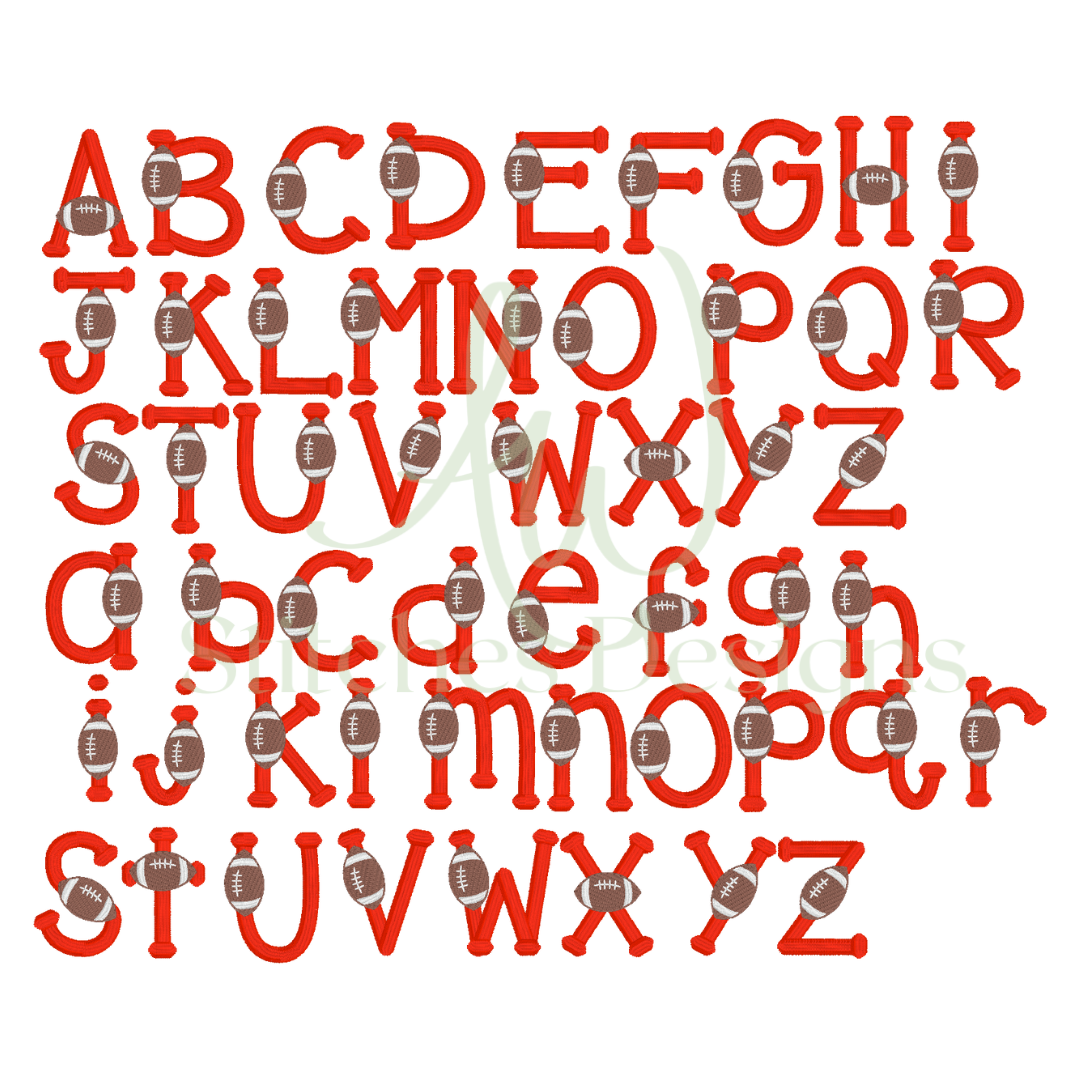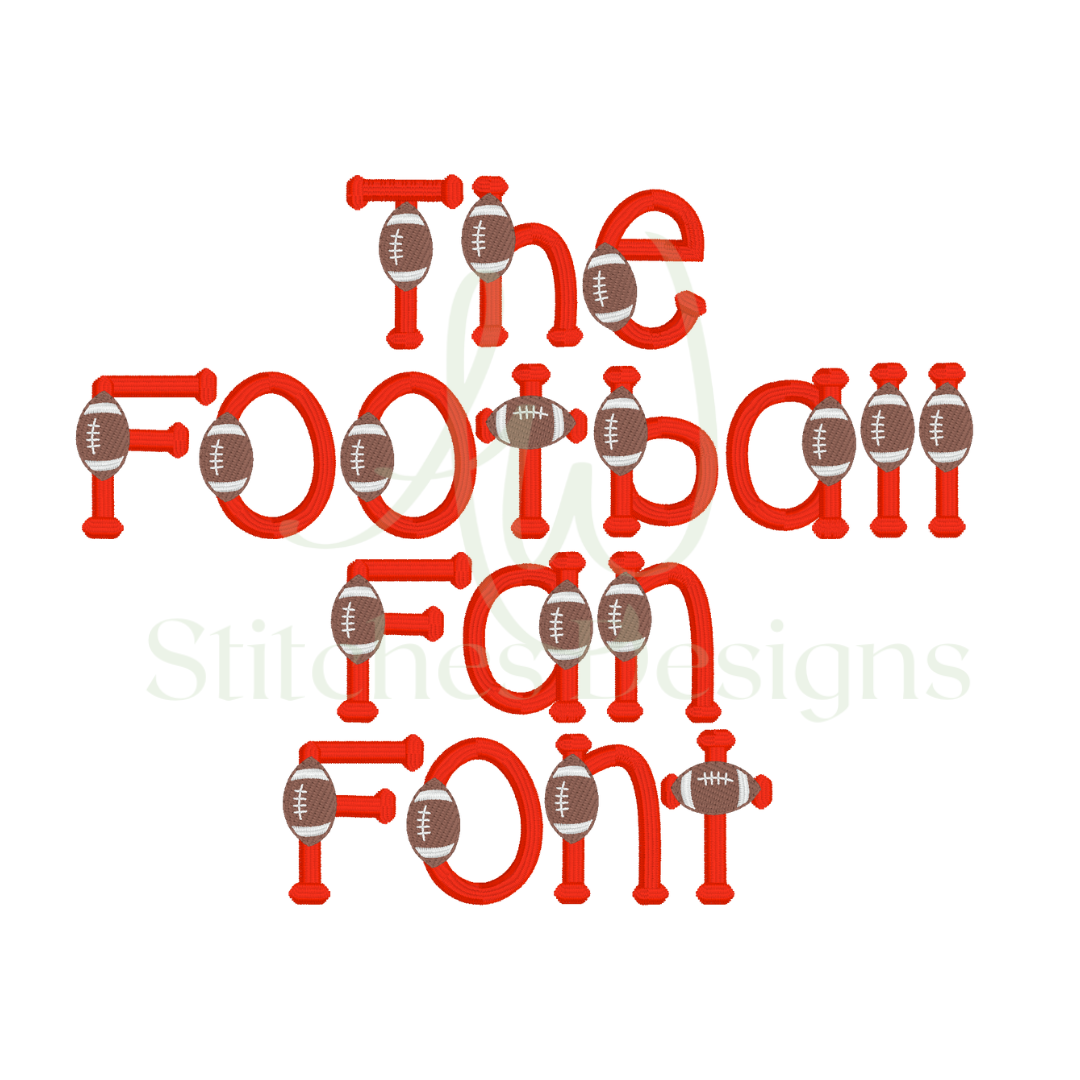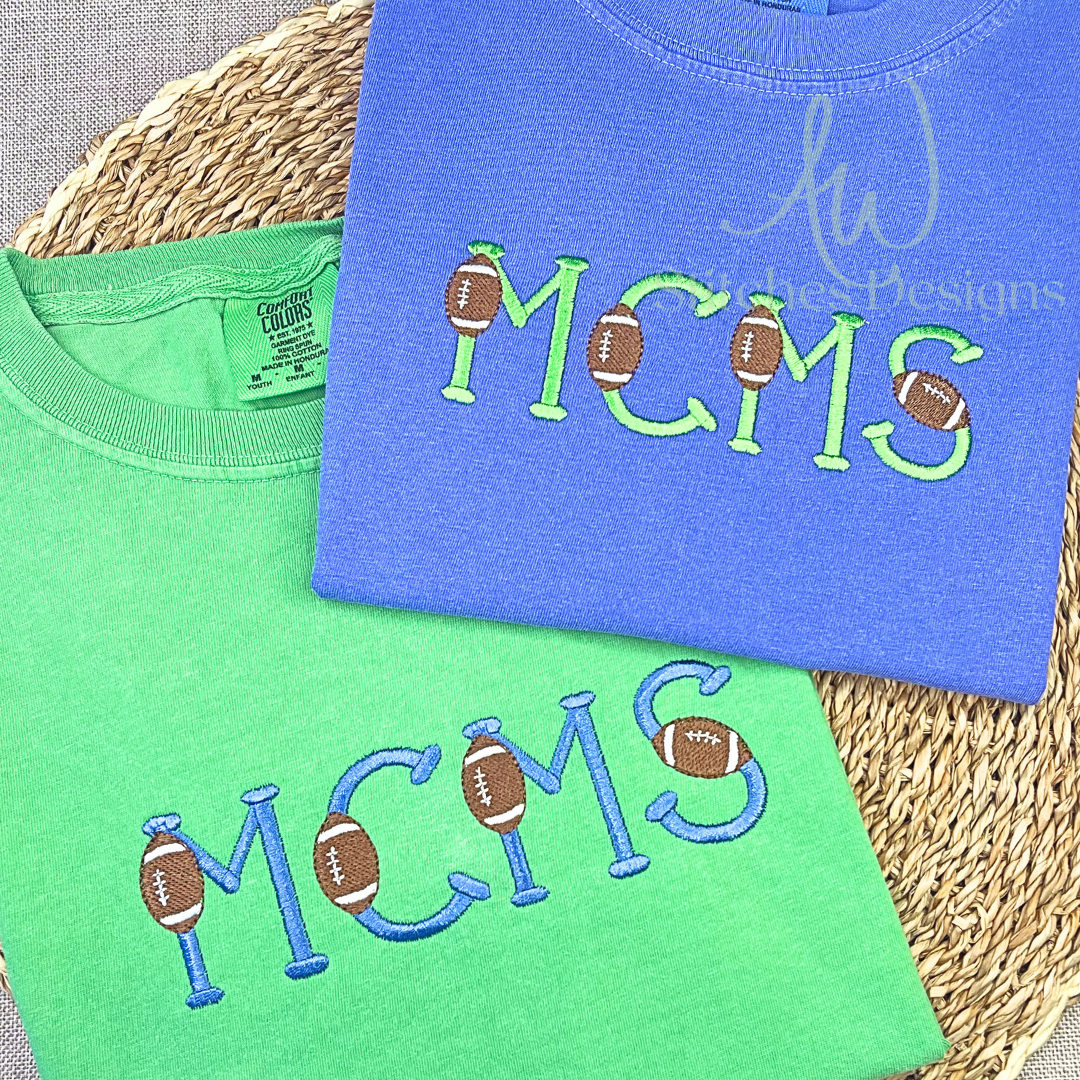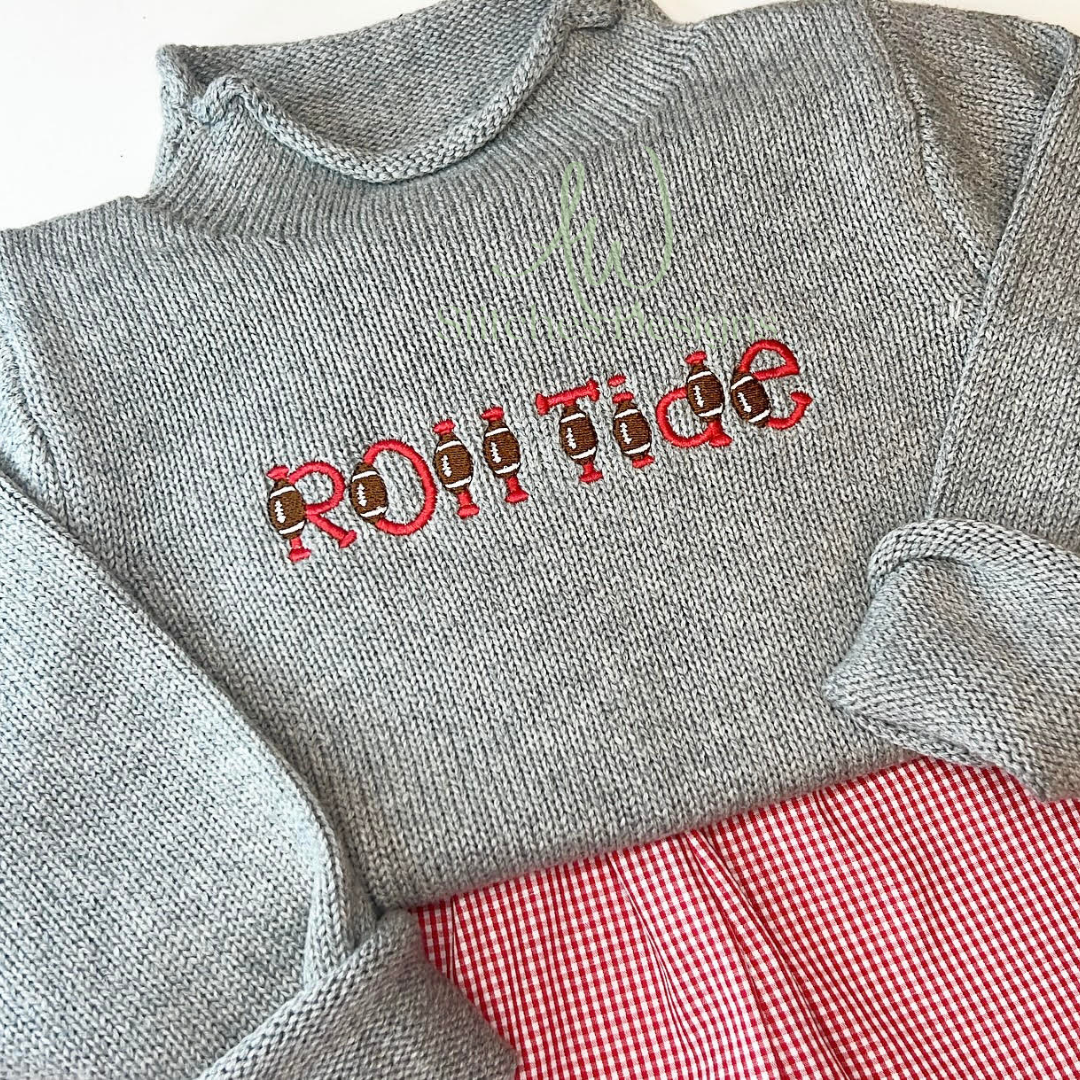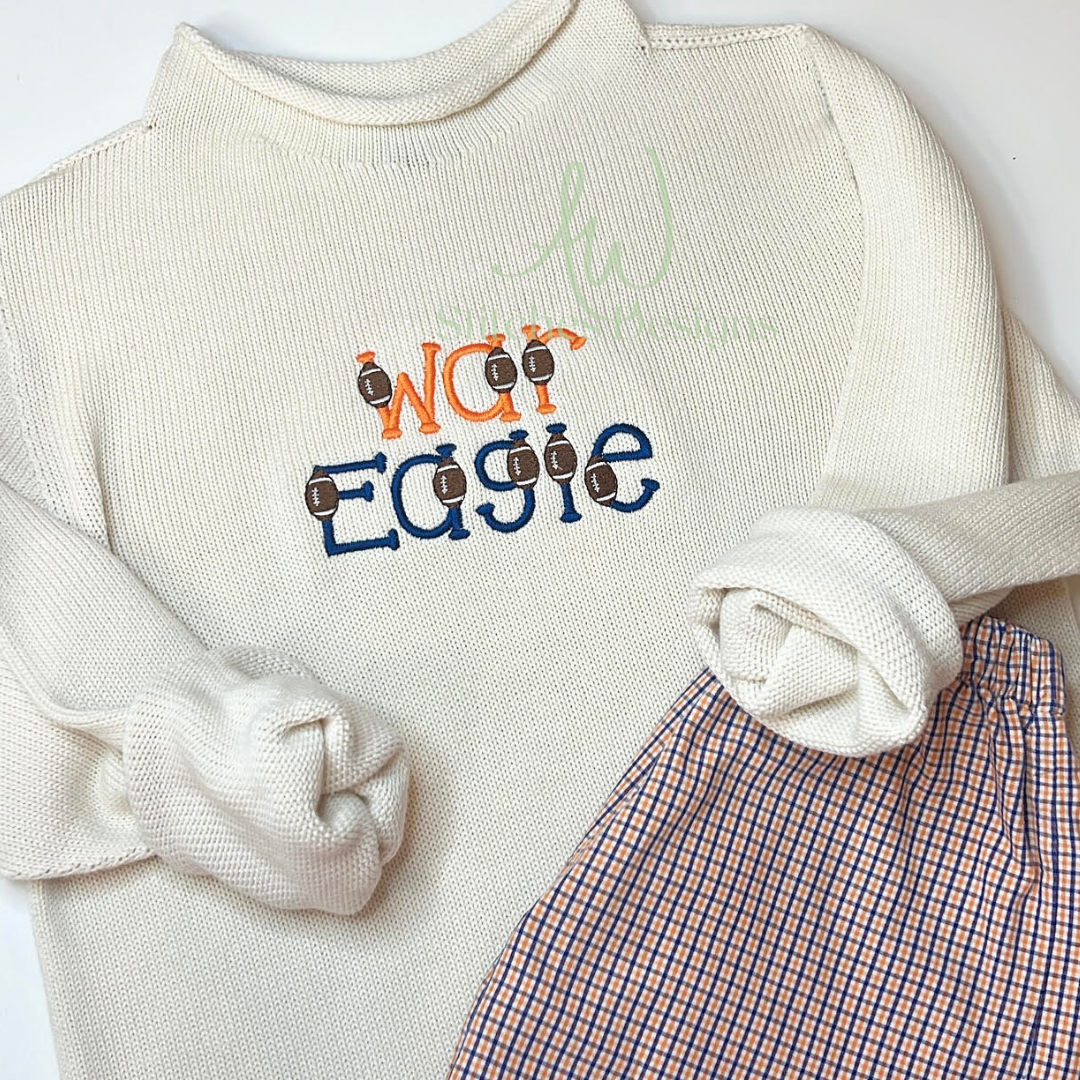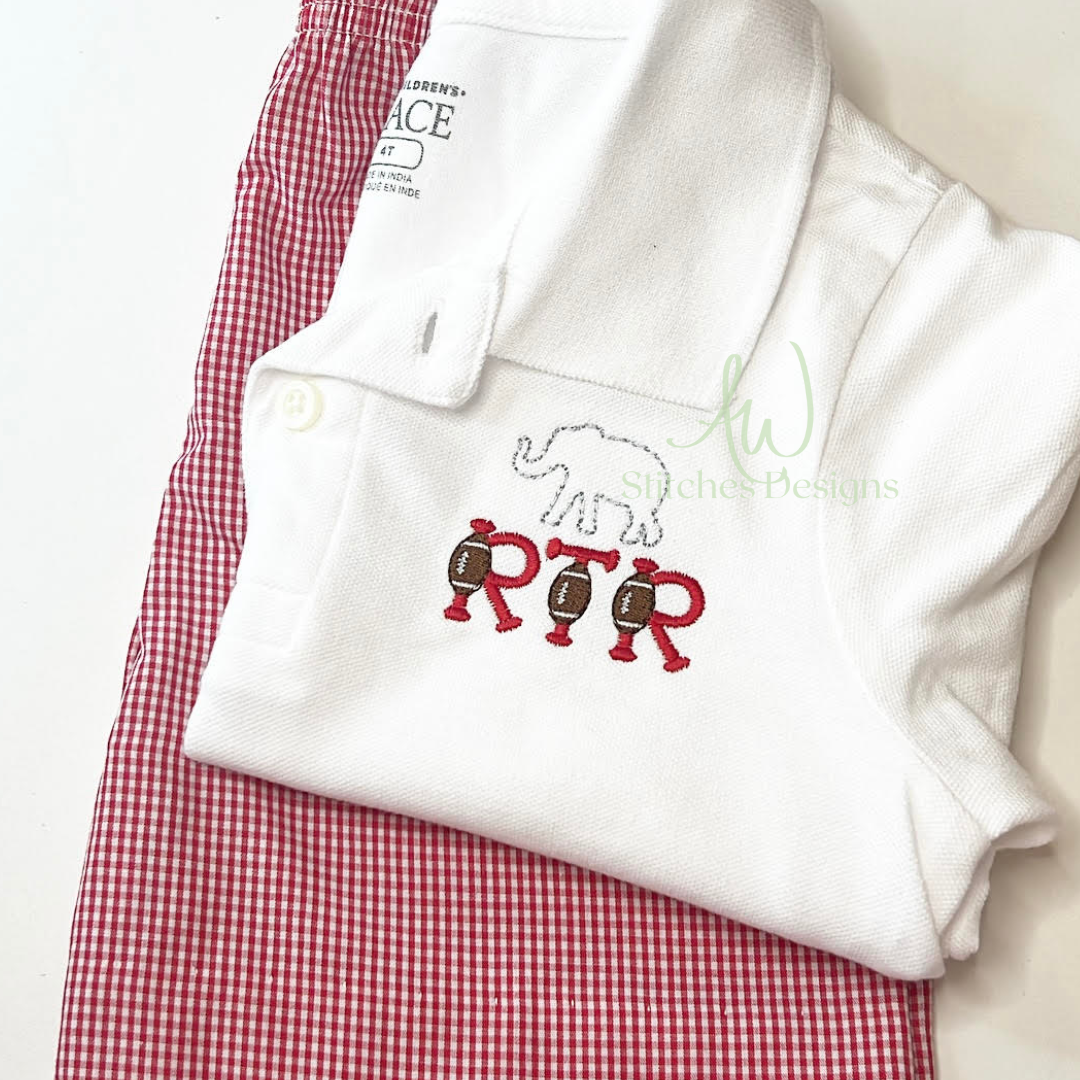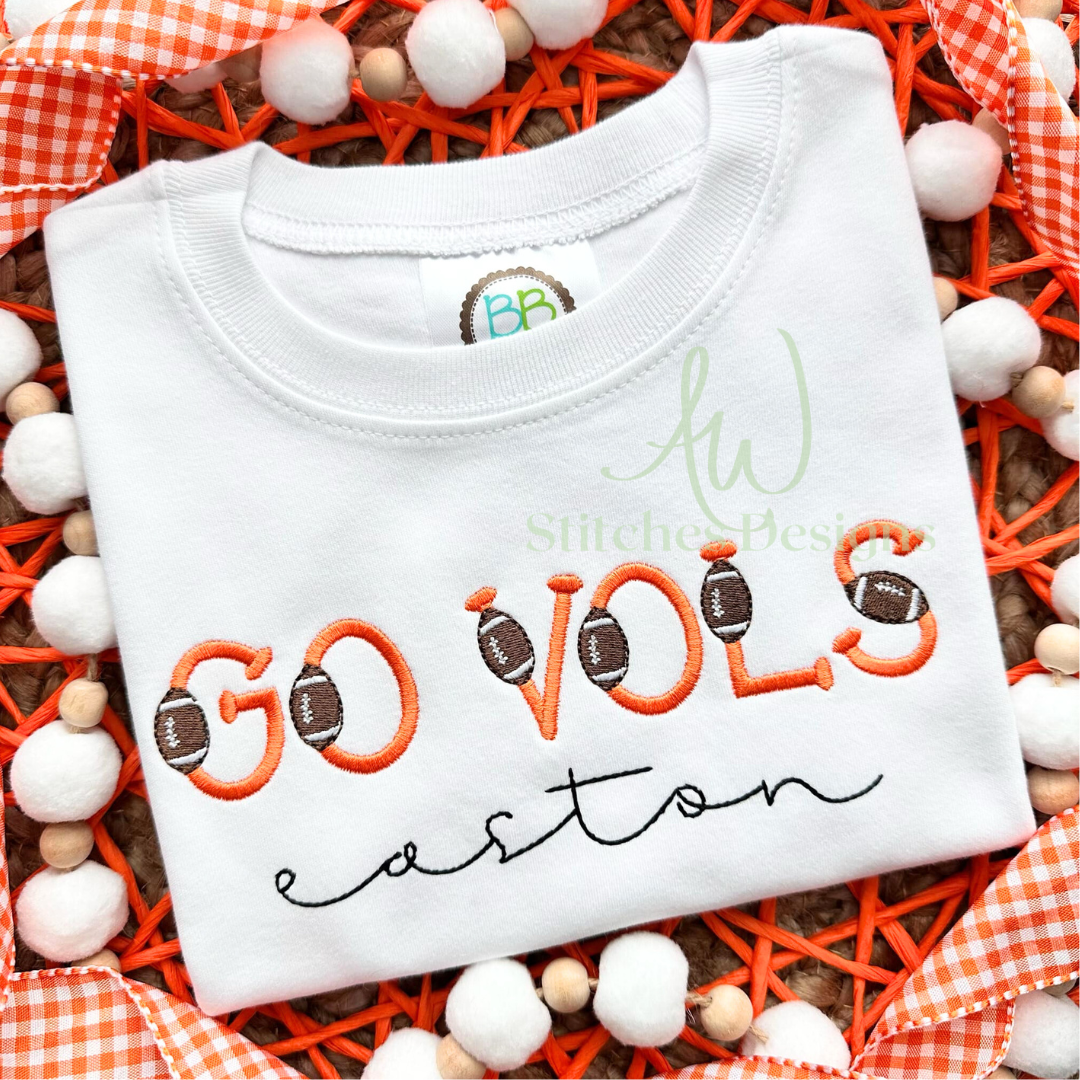
Football Fan Font
Show off your team spirit with the Football Fan Satin Stitch Font for machine embroidery, a fun and sporty embroidery font perfect for all your game day projects! This machine embroidery design file features bold, clean satin stitch letters ideal for customizing apparel, accessories, and gifts for football fans of all ages. Whether you’re stitching names, monograms, or slogans, this font is perfect for creating personalized game day looks. The file is available for instant download and comes in multiple formats compatible with all major embroidery machines. Get ready to stitch up some team spirit!
-26 lower and upper case letters A through Z